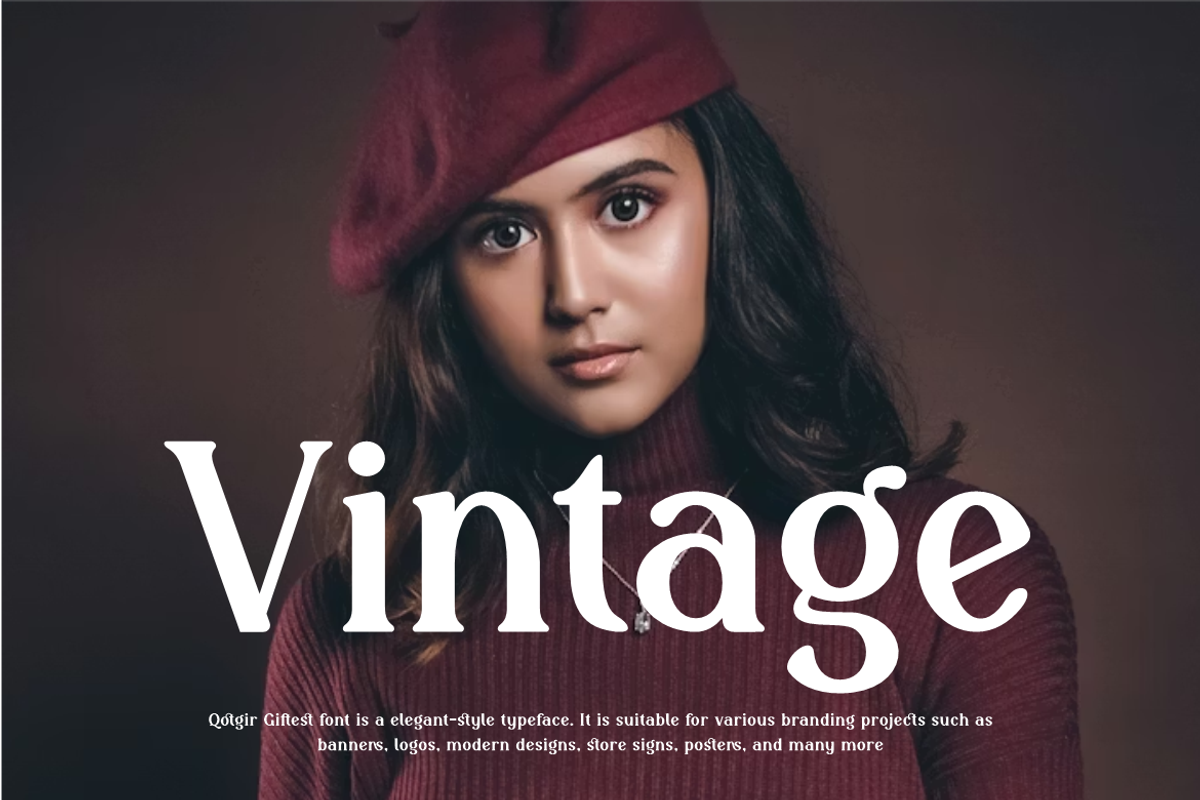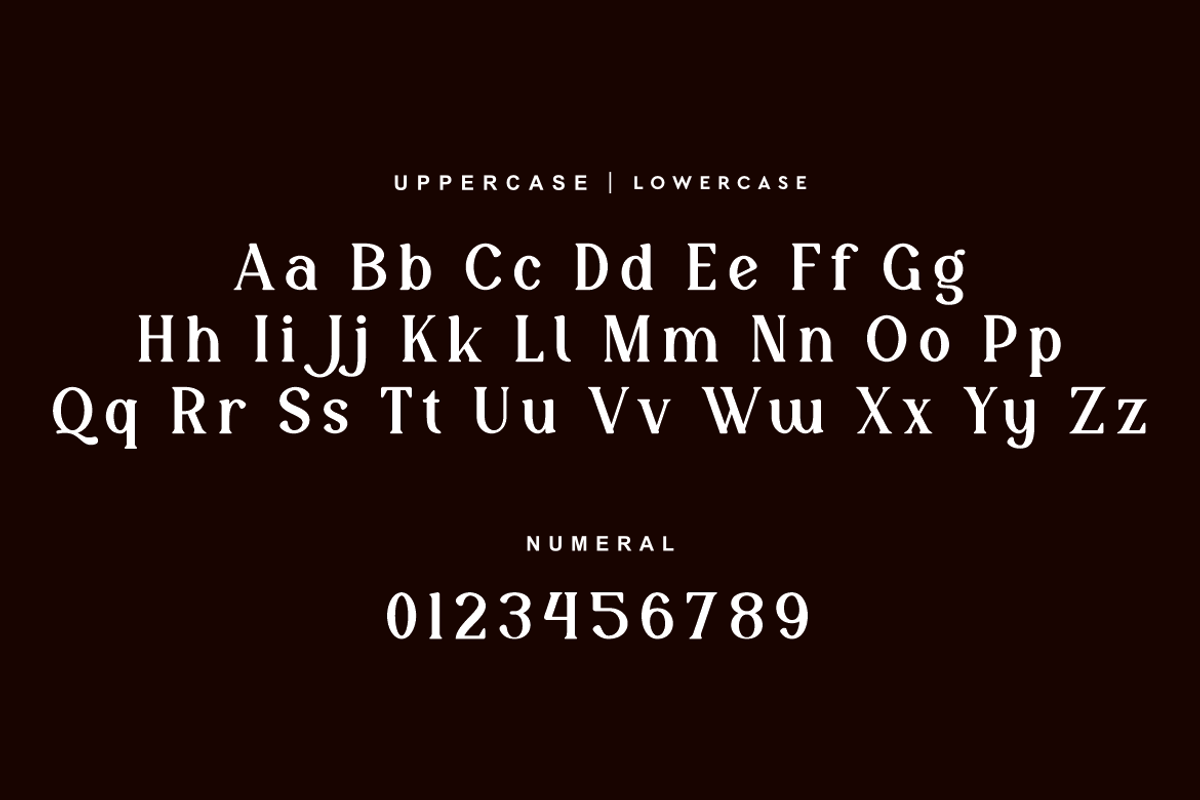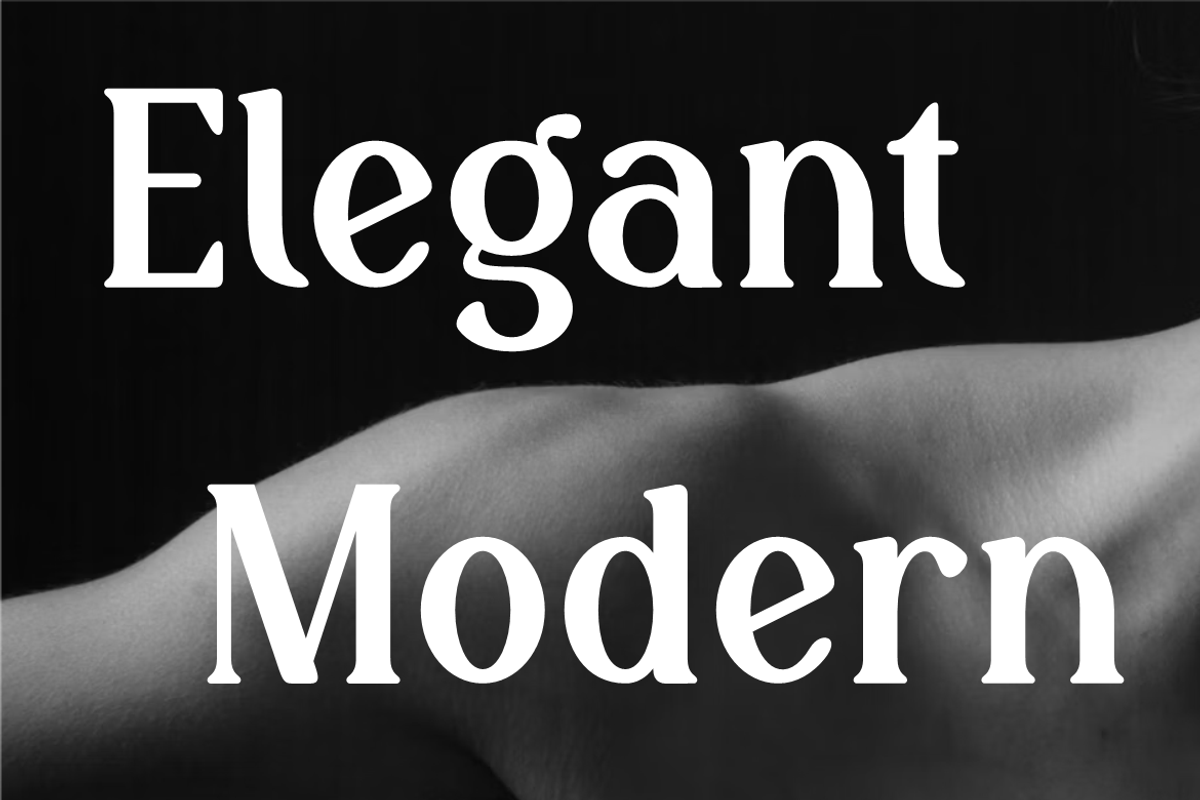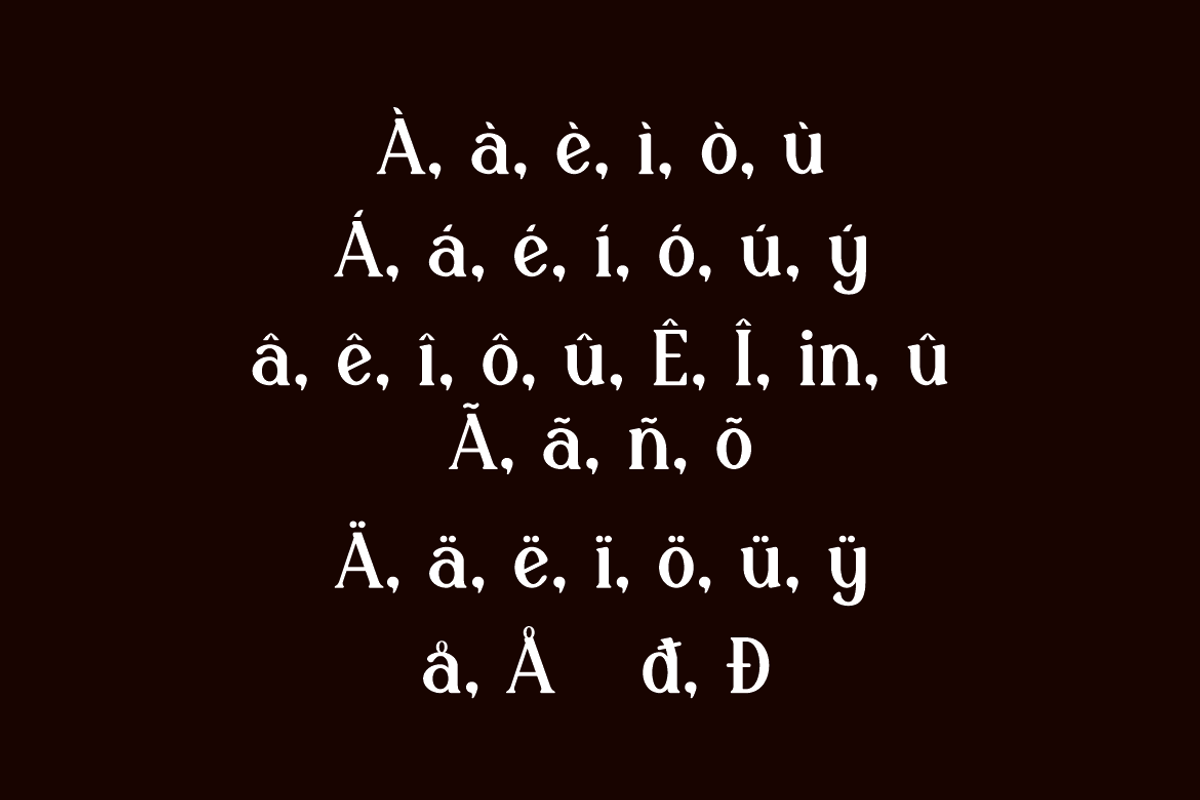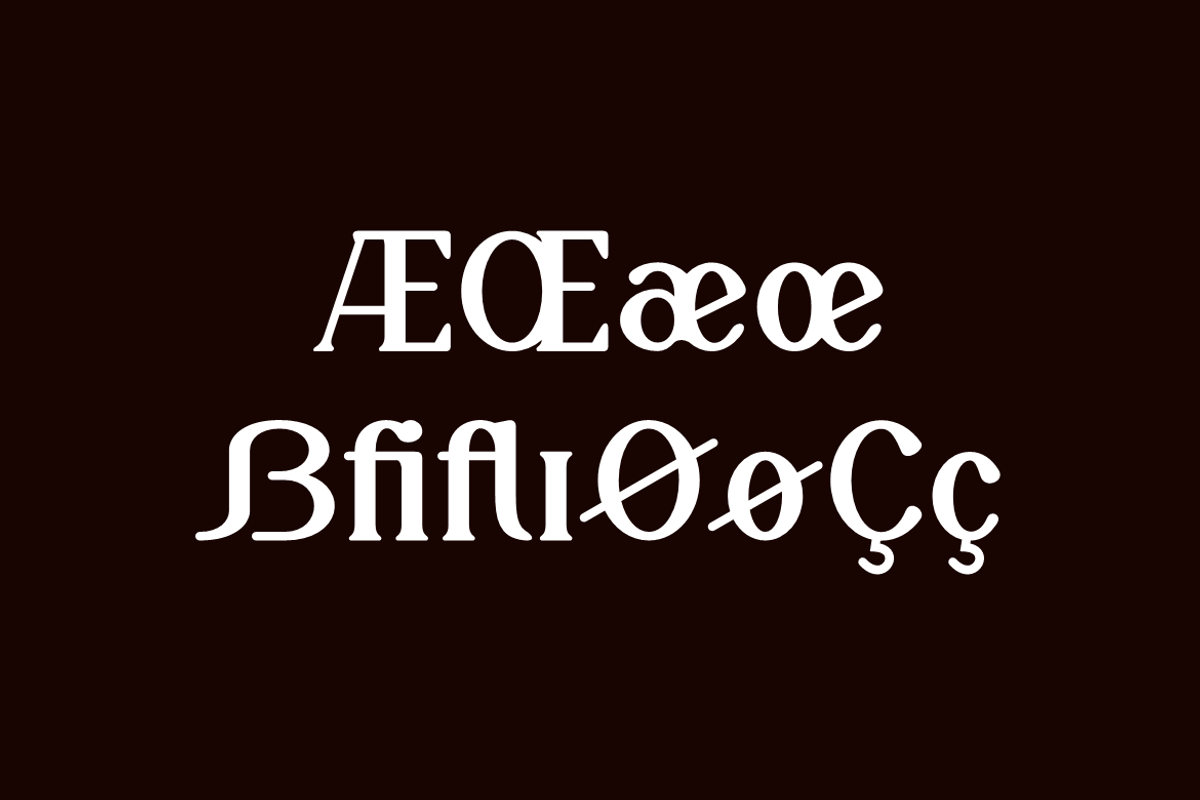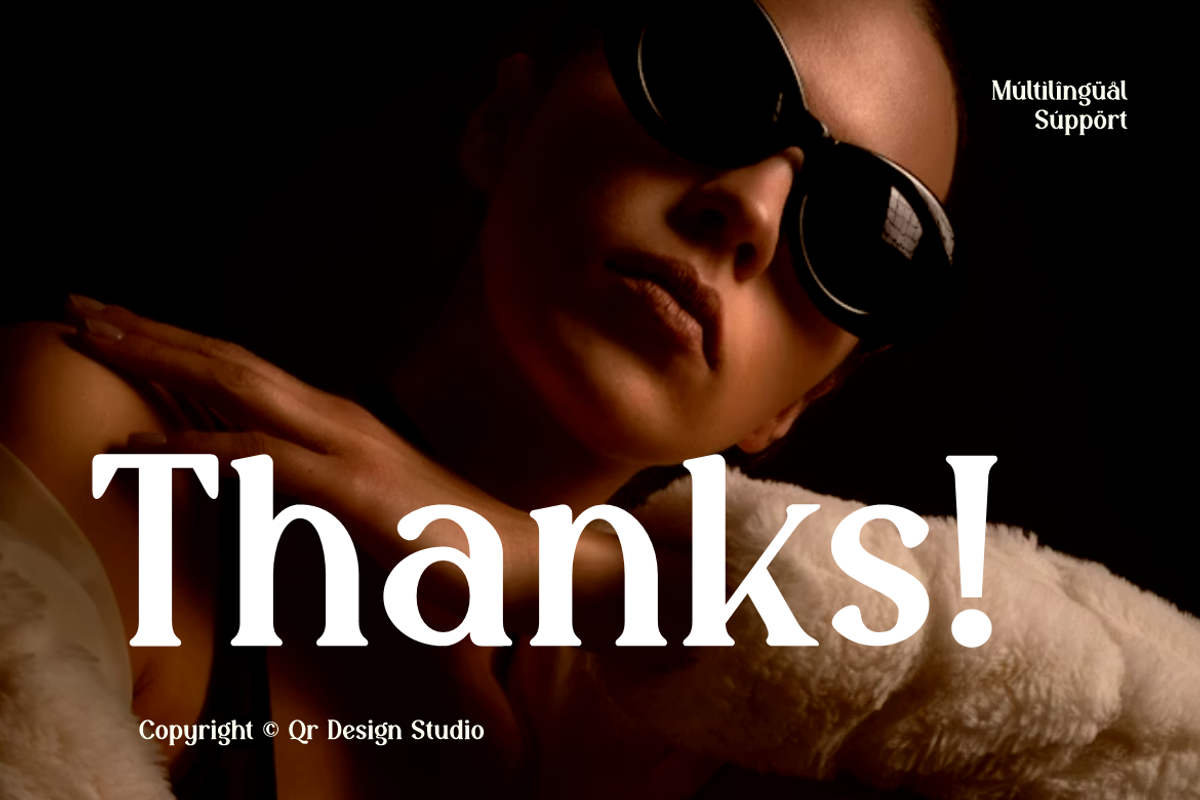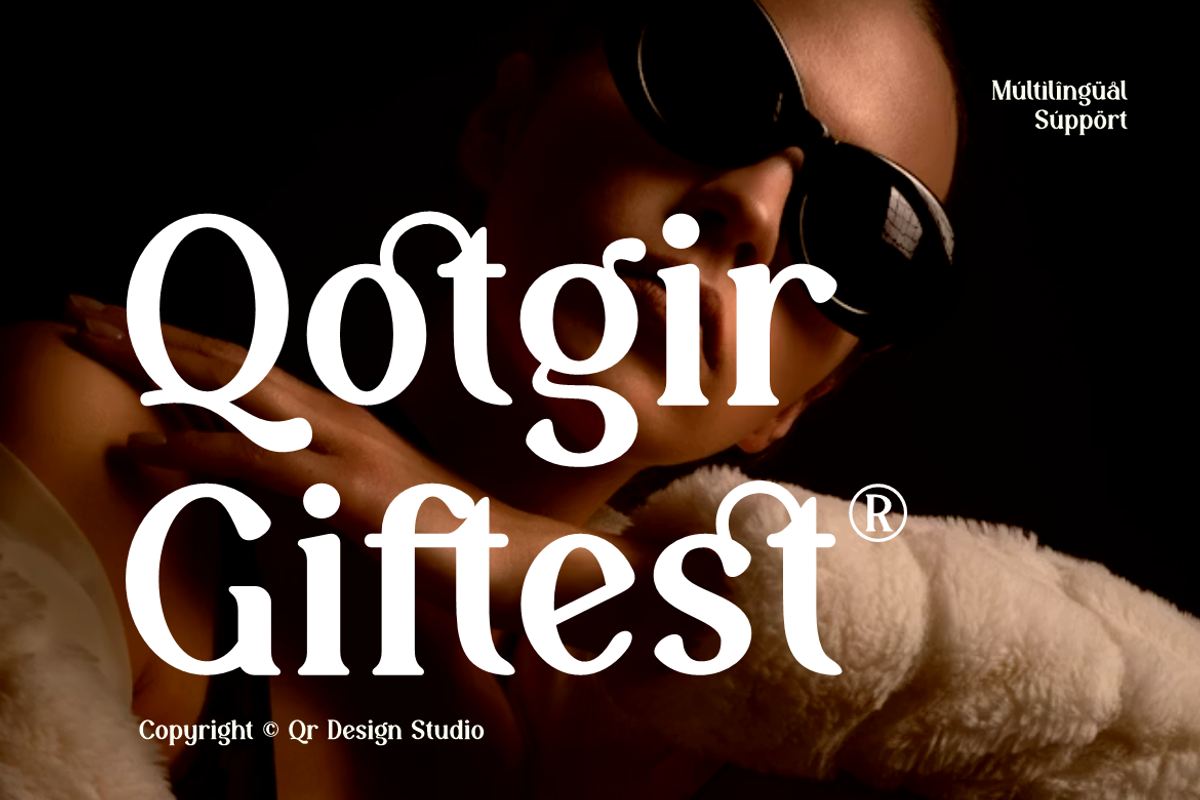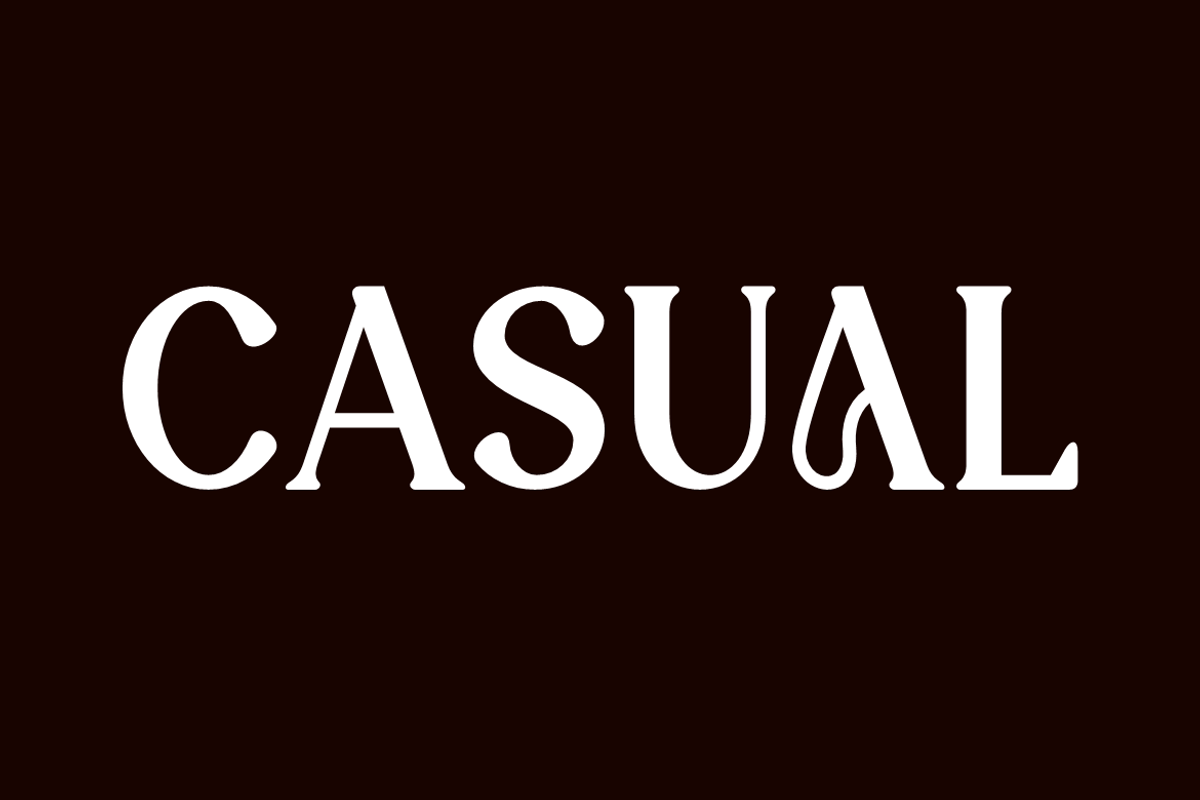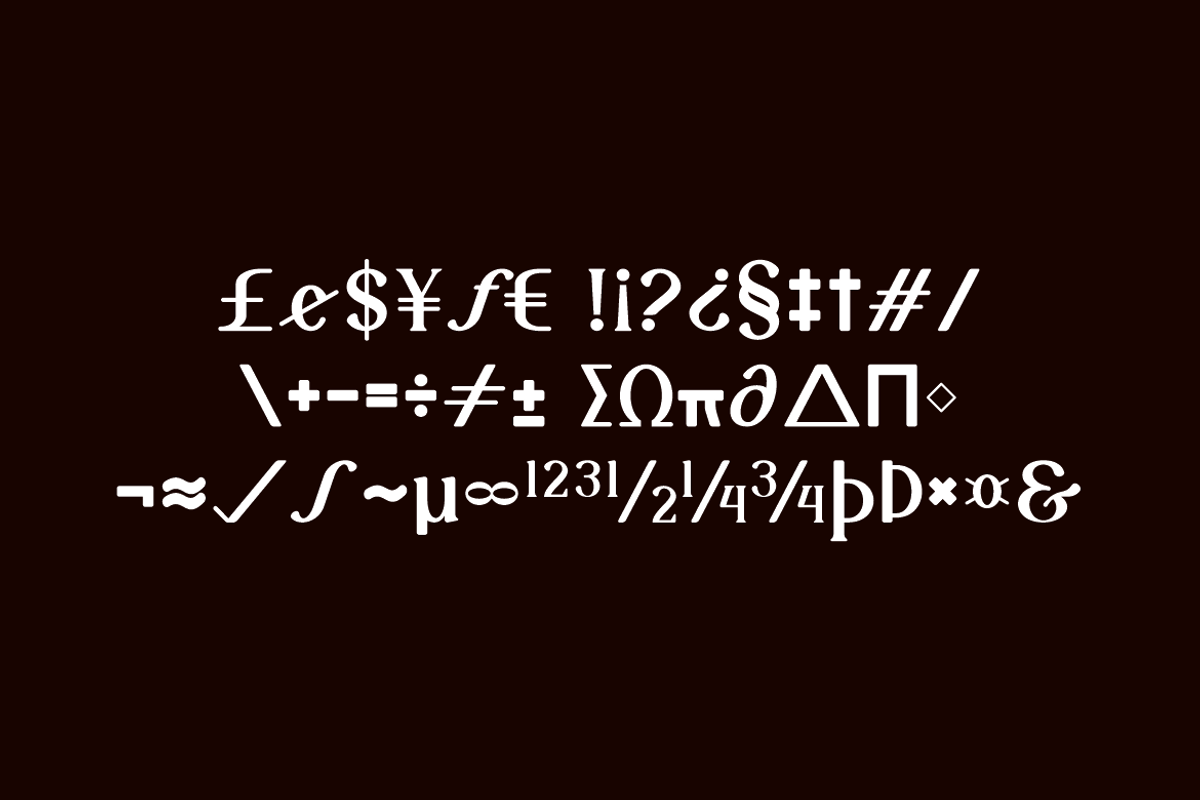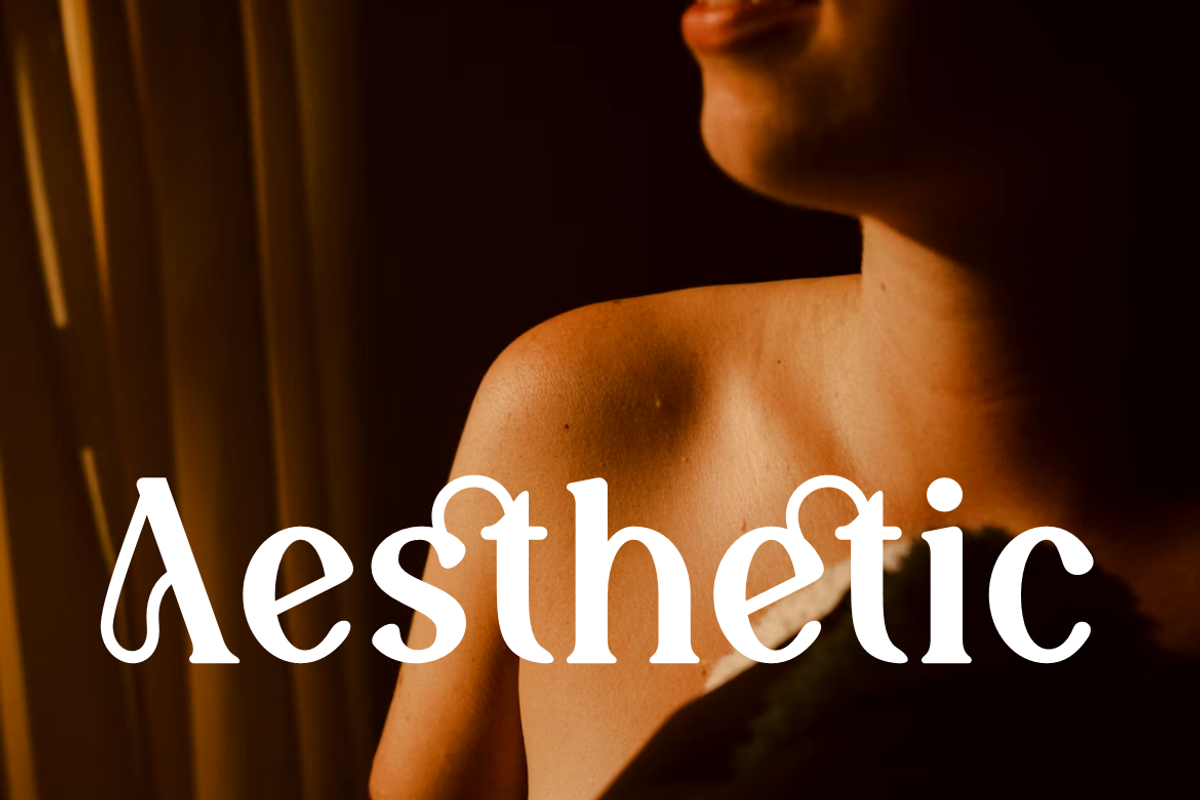
Qotgir Giftest Elegant Vintage Font
Qotgir Giftest Font is a serif and authentic display typeface.
It’s perfect for various branding projects such as logos, modern designs,
and more. This font stands out beautifully in a wide range of contexts.